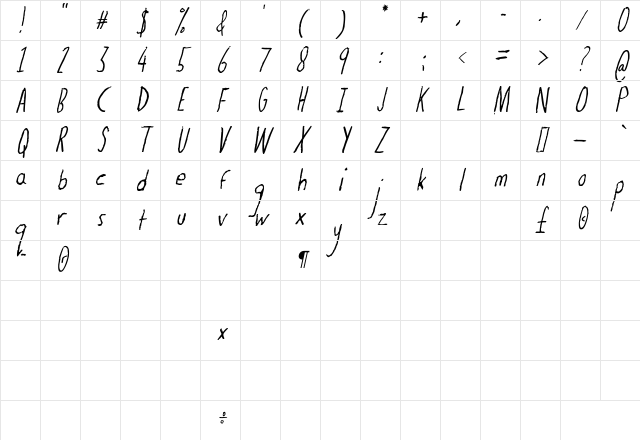
The Dog Ate My Homework Italic Free Font
The Dog Ate My Homework Italic
Designer: Christopher Jackson
Design Context for The Dog Ate My Homework
The Dog Ate My Homework is a composed and adaptable typeface that performs quietly and consistently across a wide range of design contexts. The slanted form adds forward momentum and visual energy.
Pro Tip: Use The Dog Ate My Homework for emphasis, pull quotes, and subheadings where its slanted energy can add rhythm to the layout.